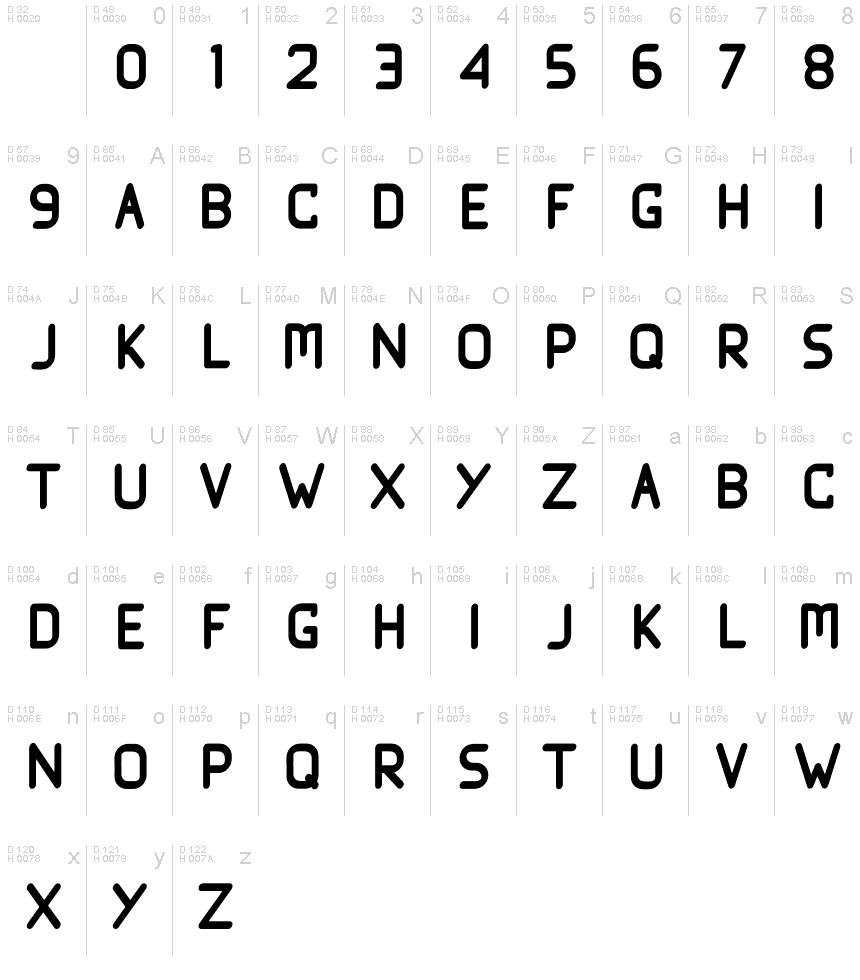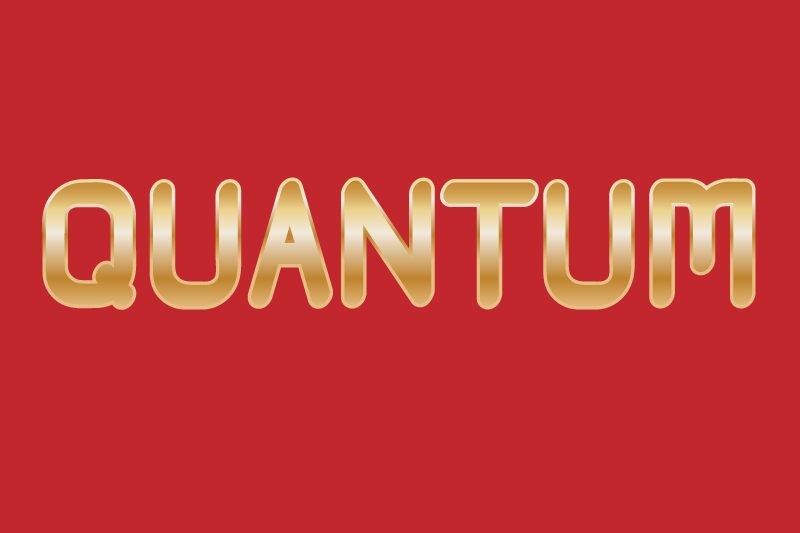
Quantum Bold
Quantum Bold is a modern, rounded sans serif font designed by Design Vector10. With its clean and crisp lines, this versatile typeface is suitable for a wide range of projects, from branding and advertising to web design and editorial layouts. Its bold weight makes it perfect for headlines and titles, while the rounded edges give it a friendly and approachable feel. Quantum Bold's unique style lends itself well to tech-related projects such as software development or gaming companies, but it can also be used for more whimsical designs such as children's books or product packaging. Try Quantum Bold today and see how it can elevate your next project!